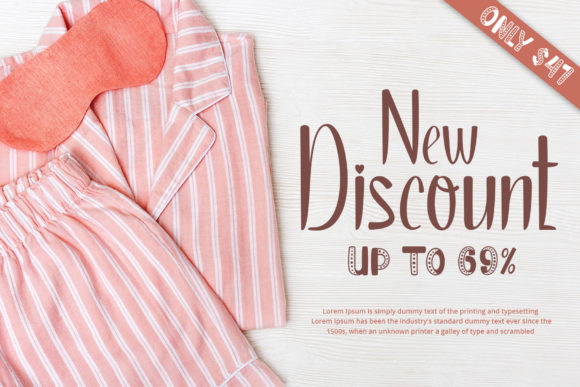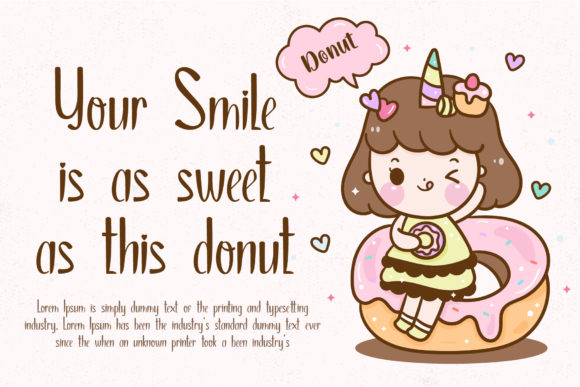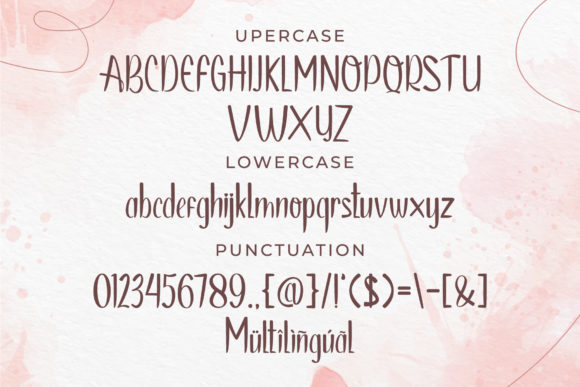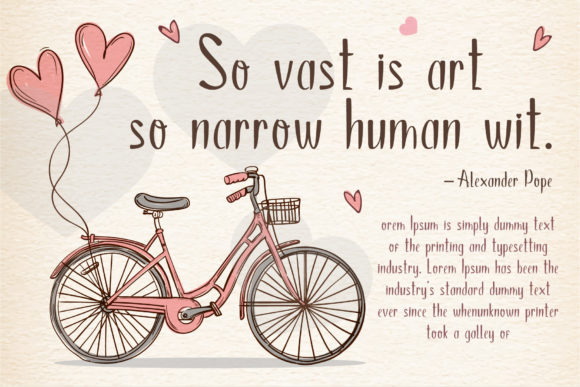
Introduction to Danisa Club Font
Danisa Club is a tall and classic script font.
This font can be used for products such as baby designs, crafts, product packaging, quotes, product designs, labels, photography, watermarks, logos & branding .